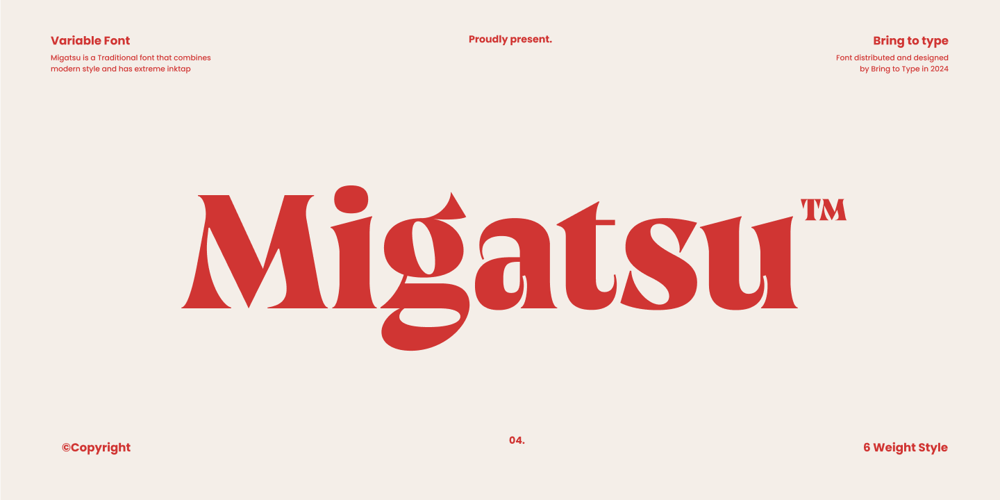
Migatsu Font Family was designed by Faris Muafa and published by Bring To Type. Migatsu contains 7 styles and family package options. Migatsu: A Harmonious Blend of Tradition and ModernityDiscover Migatsu, a variable font family that gracefully bridges the gap between classic elegance and contemporary design. With its roots deeply embedded in traditional Japanese aesthetics, Migatsu offers a unique typographic experience, perfect for designers seeking to add a touch of cultural authenticity and modern sophistication to their projects.